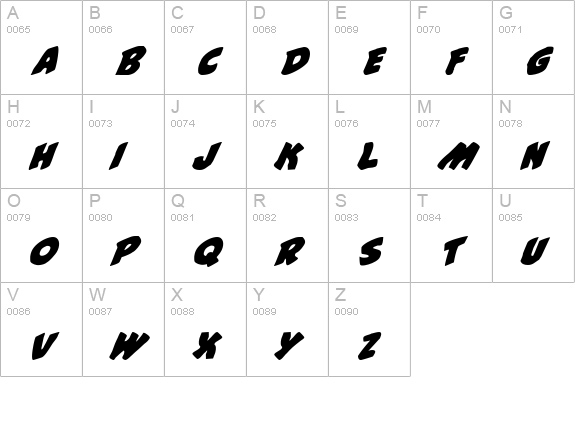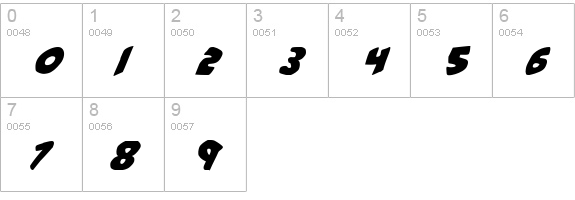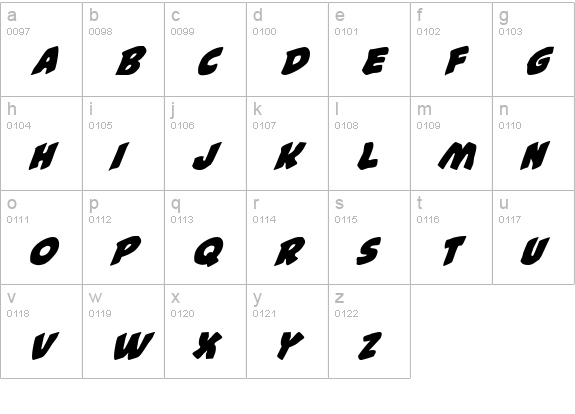
#44 Font Italic Font Details
#44 Font Italic is a distinctive, italic variant in the #44 typeface family \xE2\x80\x94 well suited to design and typography projects.
The #44 Font Italic font is a sleek and modern typeface that exudes elegance and sophistication. Its stylish italicized design adds a touch of flair to any project, making it perfect for branding, editorial design, and more. The smooth lines and unique letterforms of this font create a visually appealing aesthetic that is sure to catch the eye. What's even better is that the #44 Font Italic font is completely free to download at FontsMarket.com. Whether you're a designer looking to add a fresh new font to your collection or a business owner in need of a standout typography solution, this font is a fantastic choice. Don't miss out on the opportunity to enhance your designs with the #44 Font Italic font today!